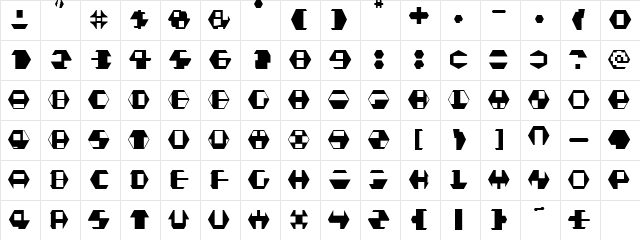
Prime v2 Regular
Foundry: PYRS Fontlab Ltd. / Made with FontLab
Design Context for Prime v2
Prime v2 is a composed and adaptable typeface that performs quietly and consistently across a wide range of design contexts.